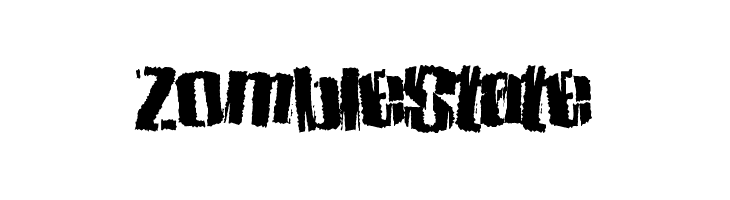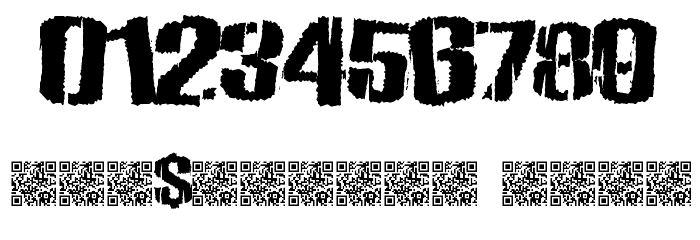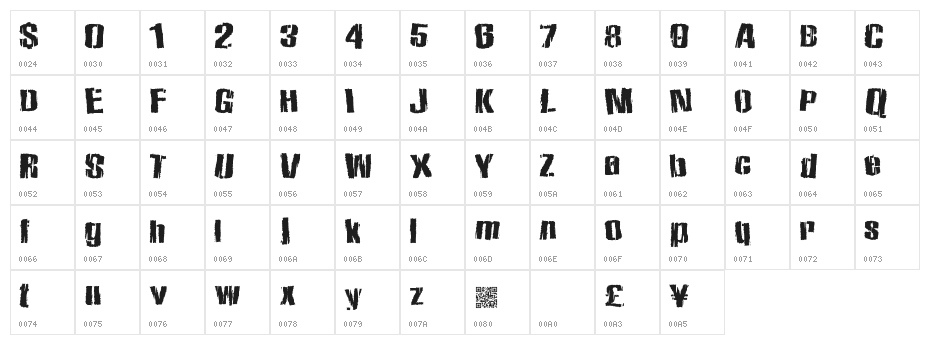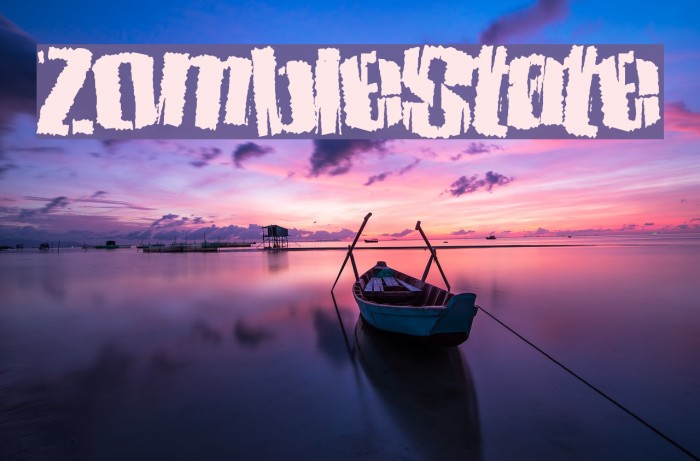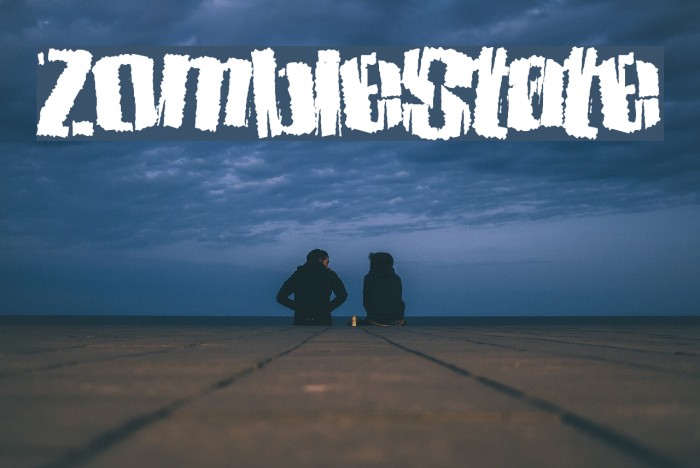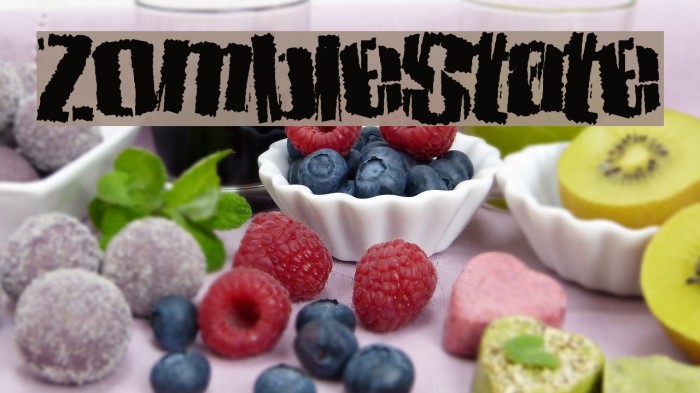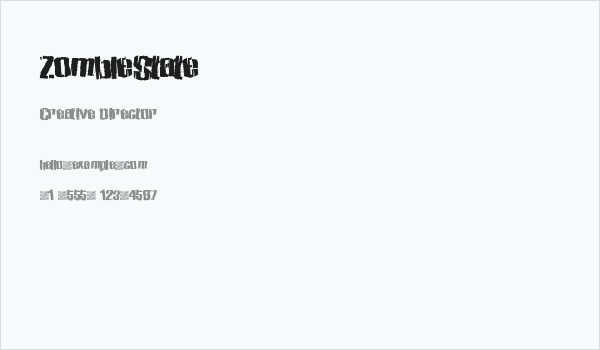
ZombieState Font
ZombieState Description
This font exudes a rugged and distressed aesthetic, reminiscent of horror or apocalyptic themes. The characters are unevenly shaped, with jagged edges and a rough texture that gives the impression of being worn or decayed. The uppercase and lowercase letters maintain this distressed style, creating a cohesive look throughout. Numbers and special characters follow the same design principles, ensuring consistency. The overall appearance is bold and impactful, making it ideal for designs that require a dramatic and edgy feel.
| Proposed Projects | Perfect for horror movie posters, Halloween event flyers, video game titles, or any project needing a gritty, apocalyptic vibe. |